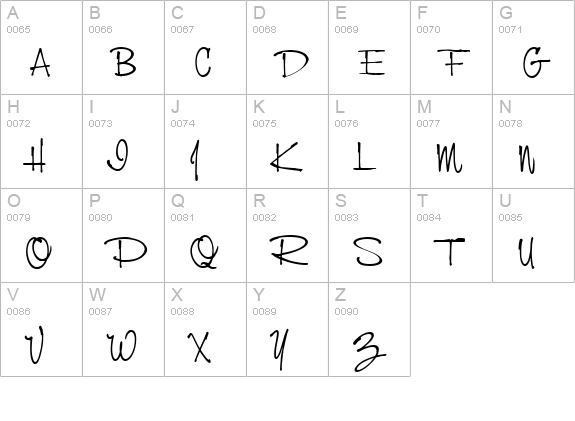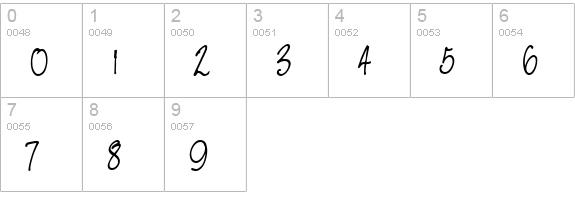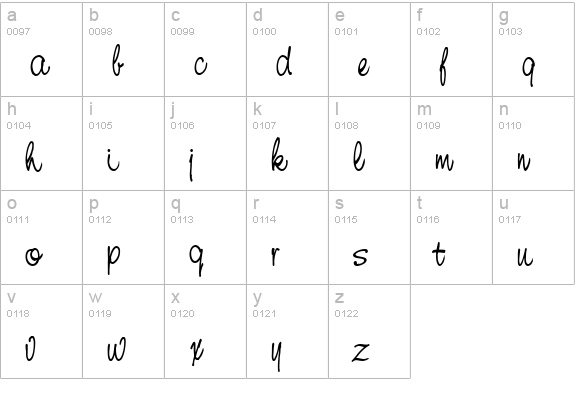
FFX Caricature Font Details
FFX Caricature is a whimsical and playful font that is sure to add a touch of fun to any design project. With its exaggerated and exaggerated letterforms, this font exudes a sense of humor and lightheartedness. Perfect for creating eye-catching headlines, posters, or social media graphics, FFX Caricature will surely make your text stand out. And the best part? FFX Caricature is available for free download at FontsMarket.com! This means you can easily access this unique font and incorporate it into your projects without any cost. Don't miss out on the opportunity to add a touch of humor and creativity to your designs with FFX Caricature. Download it now and let your imagination run wild!